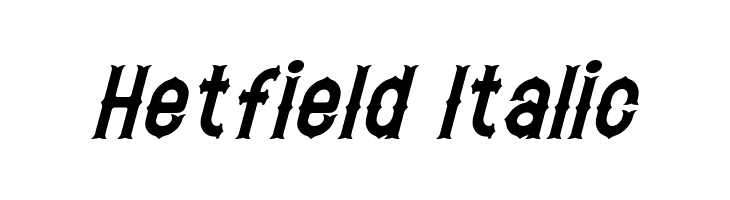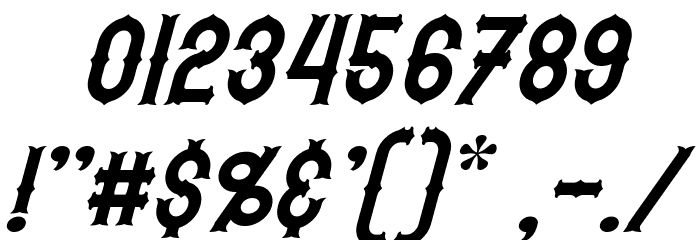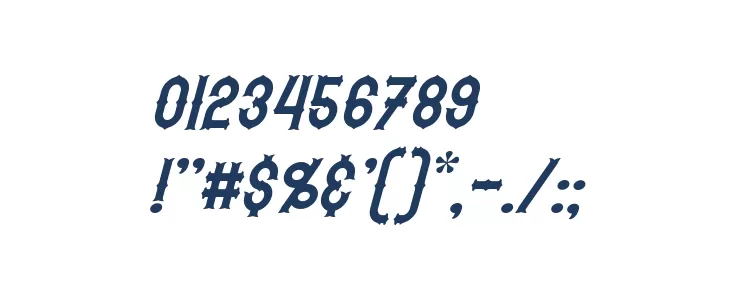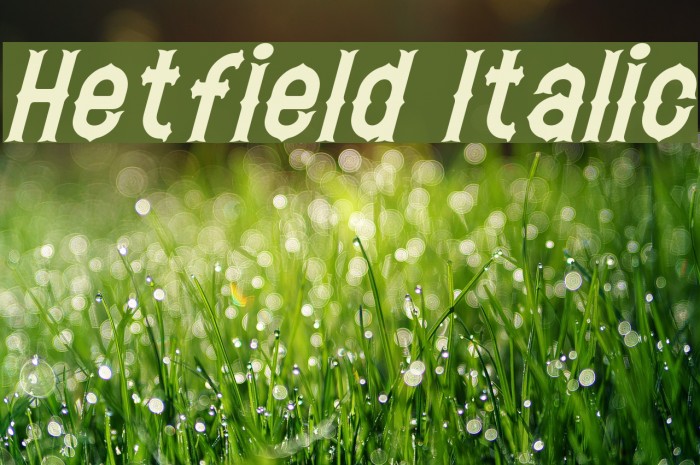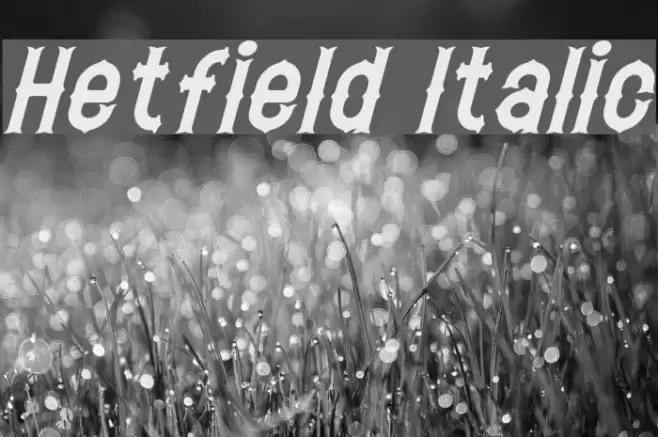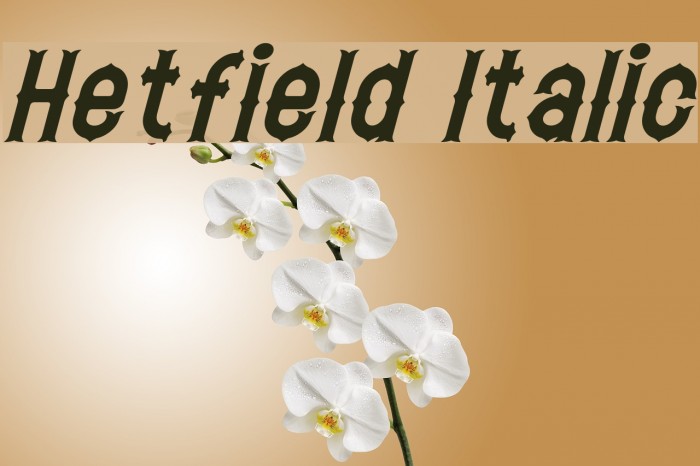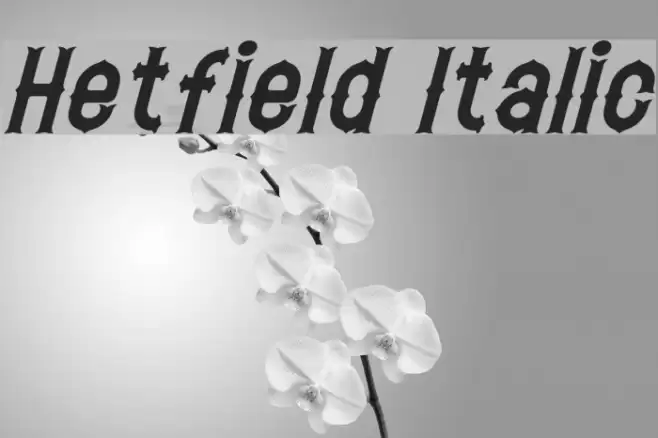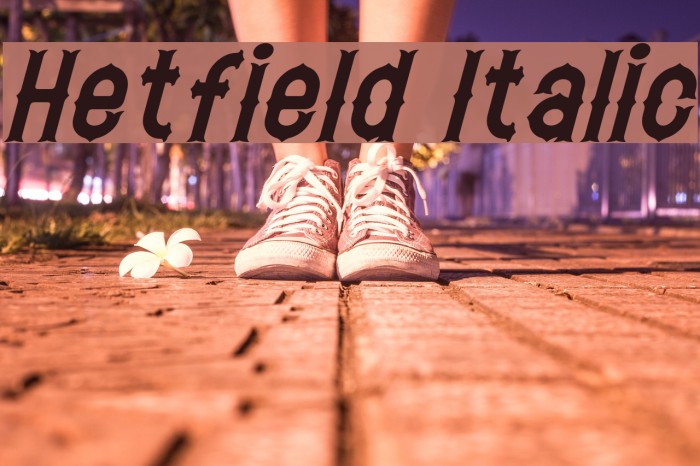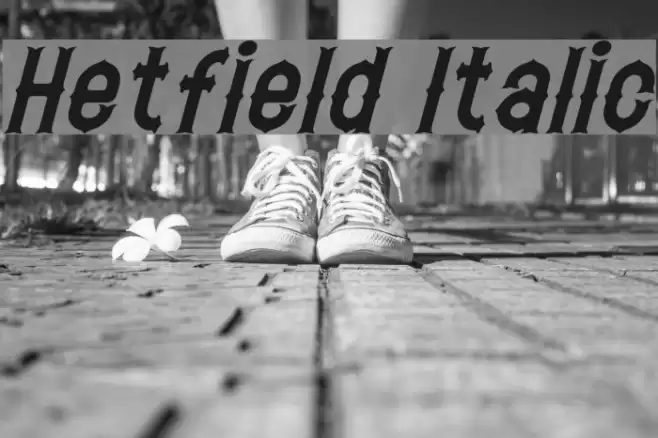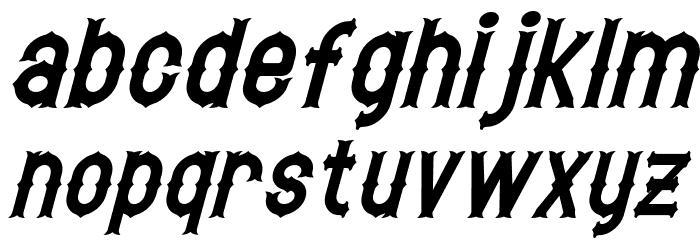
Hetfield Italic Font
Hetfield Italic Description
This font features a bold and dynamic style with sharp, angular edges and a distinct italic slant. The characters are robust and convey a sense of energy and movement, making them stand out with their unique, edgy appearance. The uppercase letters are particularly striking, with exaggerated serifs and a slightly condensed form that adds to the font's aggressive and modern aesthetic. The lowercase letters maintain the same boldness, ensuring consistency throughout. Numbers and special characters are designed to match the overall style, providing a cohesive look across all text elements.
| Proposed Projects | Ideal for music album covers, posters, branding for edgy or modern products, and any project requiring a bold, impactful statement. |